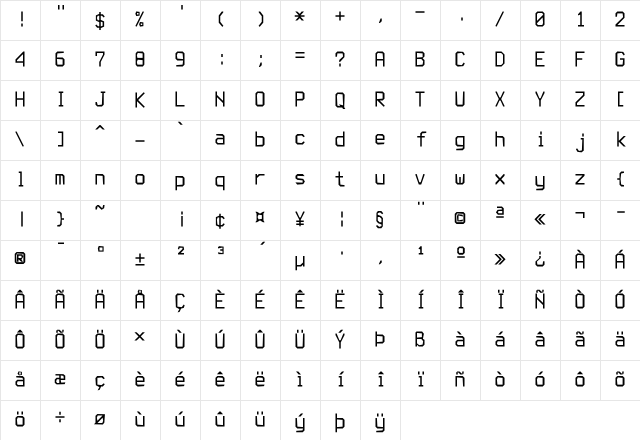
TerminessTTF Nerd Font Medium
Complete TerminessTTF Nerd Font Medium glyph index. Displaying only characters natively supported by TerminessTTF Nerd Font Medium font.
Design Context for TerminessTTF Nerd Font
TerminessTTF Nerd Font is a composed and adaptable typeface that performs quietly and consistently across a wide range of design contexts.